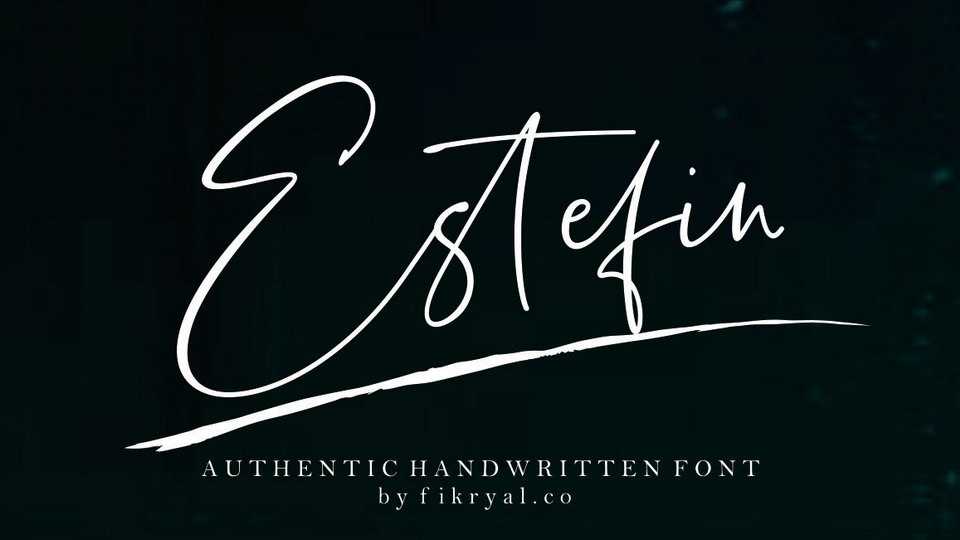
Download Estefin font, a fast handwritten script, accompanied by natural and authentic strokes that fit, so as to provide an elegant, aesthethic and beautiful impression for all your projects.
Designer: Fikry Alif